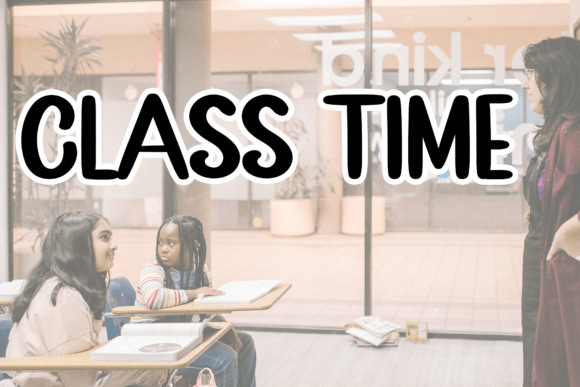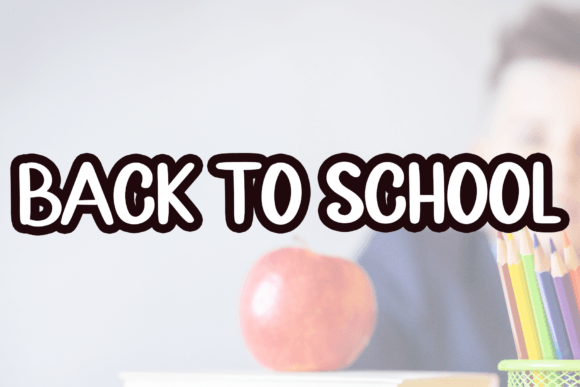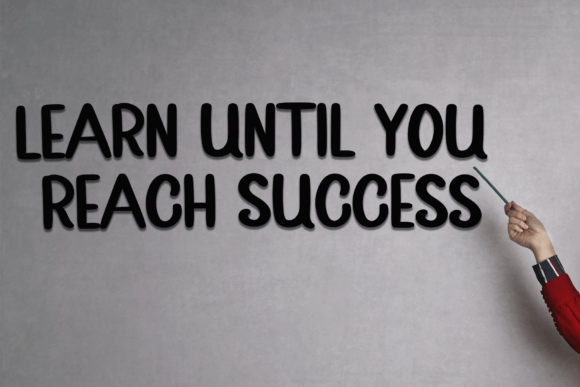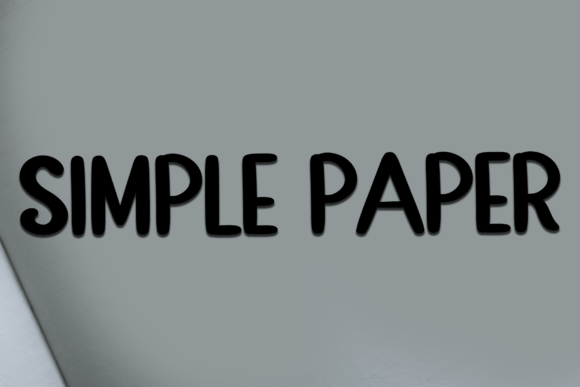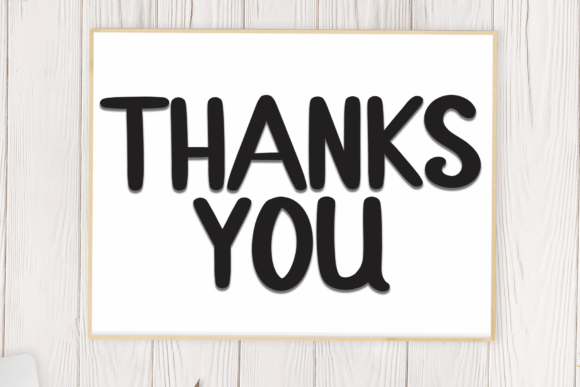
Good Teacher is a stunning handwritten font that exudes elegance and sophistication. It’s perfect for adding a personal touch to your favorite projects, whether it’s a wedding invitation, a children’s book, or a marketing campaign. With its unique and timeless style, Good Teacher Font is a valuable addition to any designer’s toolkit.
Good Teacher Font Key Features
- Font Family: Good Teacher is a modern sans-serif font designed specifically for educational purposes.
- Character Set: Supports a wide range of characters, including Latin, Cyrillic, and Greek alphabets, as well as mathematical symbols and accents.
- Unique Characteristics: Features a clean, modern design with a subtle rounded edge, making it highly readable and visually appealing for educational materials.
Designer Review: Good Teacher Font
Overall, I think the Good Teacher Font is a decent choice for educational materials. The font’s clean and modern design ✨ makes it easy to read, and the rounded edges give it a friendly, approachable feel.
- The font’s legibility is excellent, making it perfect for long blocks of text.
- The rounded edges and subtle curves give the font a unique and recognizable feel.
- The font’s digital nature makes it suitable for screen-based materials, such as e-books and online courses.
Limitsations:
- ⚠️ The font’s design is a bit too generic and lacks a distinct personality, making it less memorable than other fonts.
- ⚠️ The font’s weight system could be more comprehensive, as some weights feel a bit too similar.
- ⚠️ The font may not be the best choice for more creative or artistic projects, as it’s a bit too conservative.
Overall, I think the Good Teacher Font is a solid choice for educational materials, but it may not stand out in more creative or artistic contexts.
Getting the Most Out of the Good Teacher Font
Here are some tips to get the most out of the Good Teacher Font:
- Use the font consistently throughout your design to create a cohesive look.
- Combine the Good Teacher Font with other fonts to create a unique and engaging design.
The Good Teacher Font is perfect for:
- Education-related designs (e.g., posters, flyers,
Alternative Fonts to Good Teacher
Playfair Display is a high-end serif font that works well for luxury branding, magazines, and high-end advertising. It has a classic feel with elegant flourishes, making it perfect for creating a sophisticated atmosphere. In comparison to Good Teacher Font, Playfair Display is more ornate and luxurious, while Good Teacher is more modern and clean.
Lato is a sans-serif font that is highly legible and versatile. It works well for digital products, apps, and websites. Lato is more modern and clean compared to Good Teacher Font, with a slightly more condensed feel. It’s a great alternative for designers who want a clean and minimalistic look.
Alegreya is a serif font that has a warm and elegant feel. It works well for books, magazines, and editorial content. Alegreya is more traditional and classic compared to Good Teacher Font, with a more subtle and refined look. It’s a great alternative for designers who want a timeless and sophisticated look.
Montserrat is a sans-serif font that is highly legible and versatile. It works well for digital products, apps, and websites. Montserrat is more modern and edgy compared to Good Teacher Font, with a more geometric feel. It’s a great alternative for designers who want a clean and modern look with a touch of urban grit.